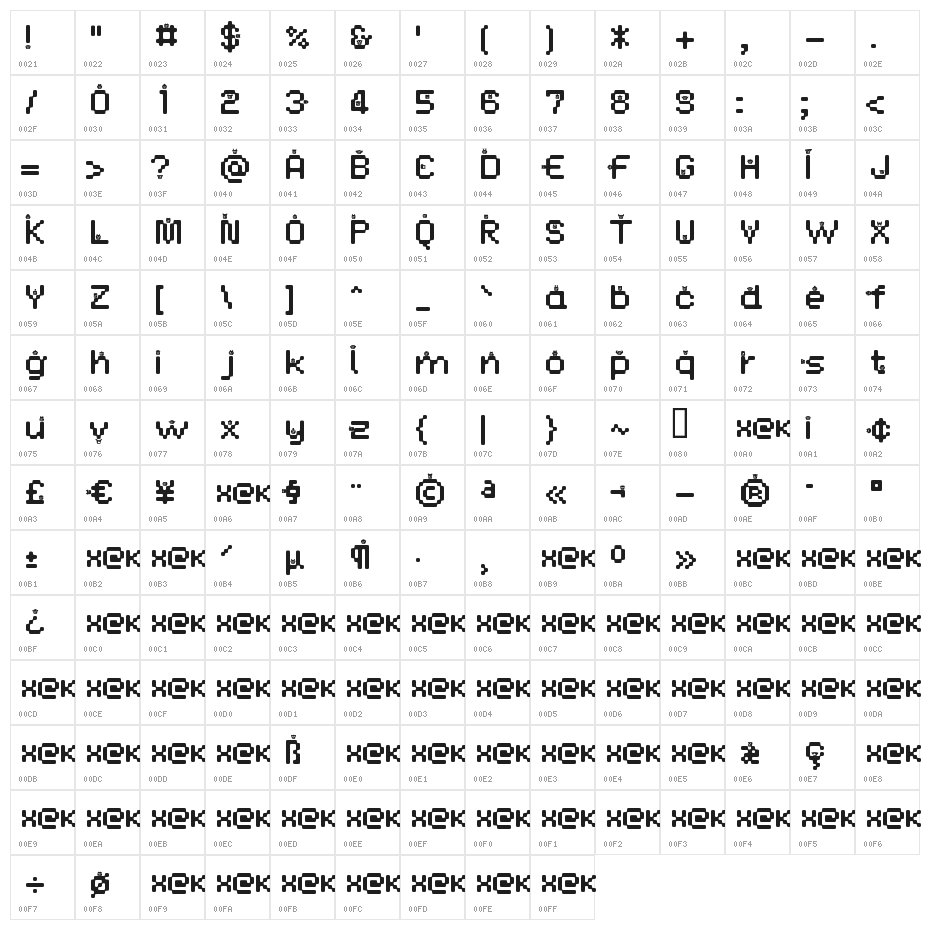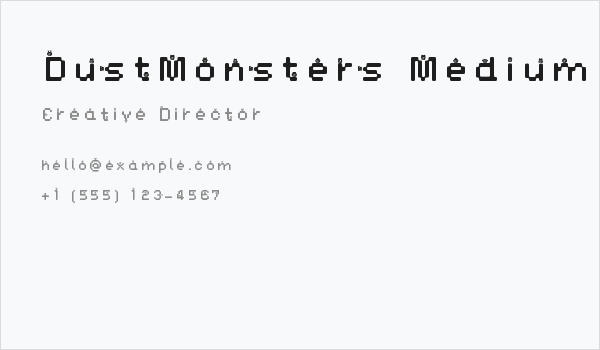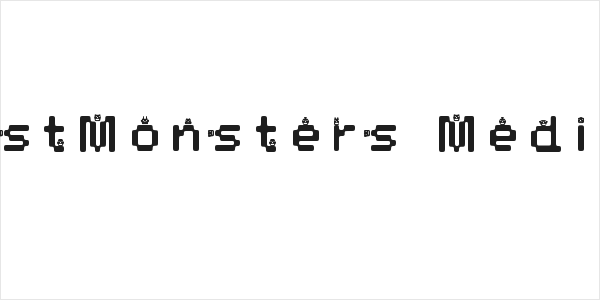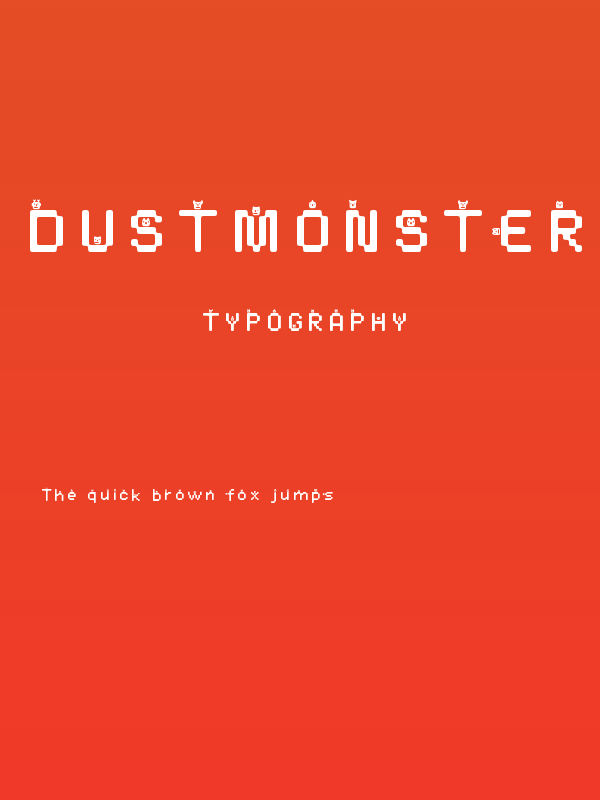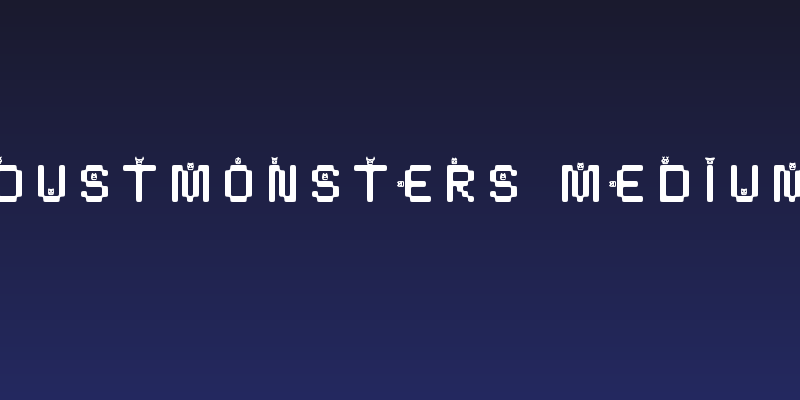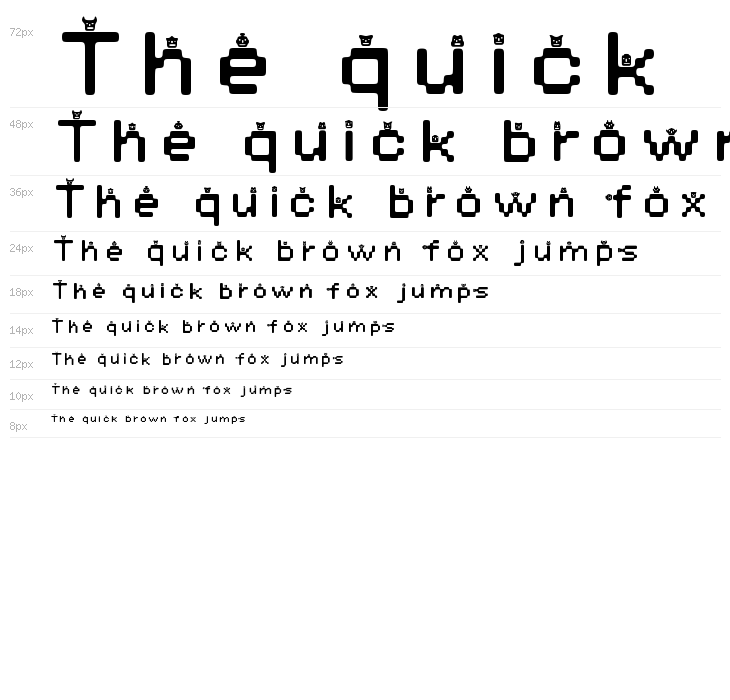
DustMonsters Medium Font
DustMonsters Medium Description
This playful and quirky font features a unique design where each character is adorned with small monster-like figures. The letters are bold and geometric, with a pixelated, blocky appearance that adds a fun and whimsical touch. The monsters add an element of surprise and creativity, making the font ideal for projects that aim to capture attention and convey a sense of humor or playfulness. The overall style is decorative and modern, with a distinctive character that stands out in any design.
Proposed ProjectsIdeal for children's books, playful branding, video game graphics, and creative posters.